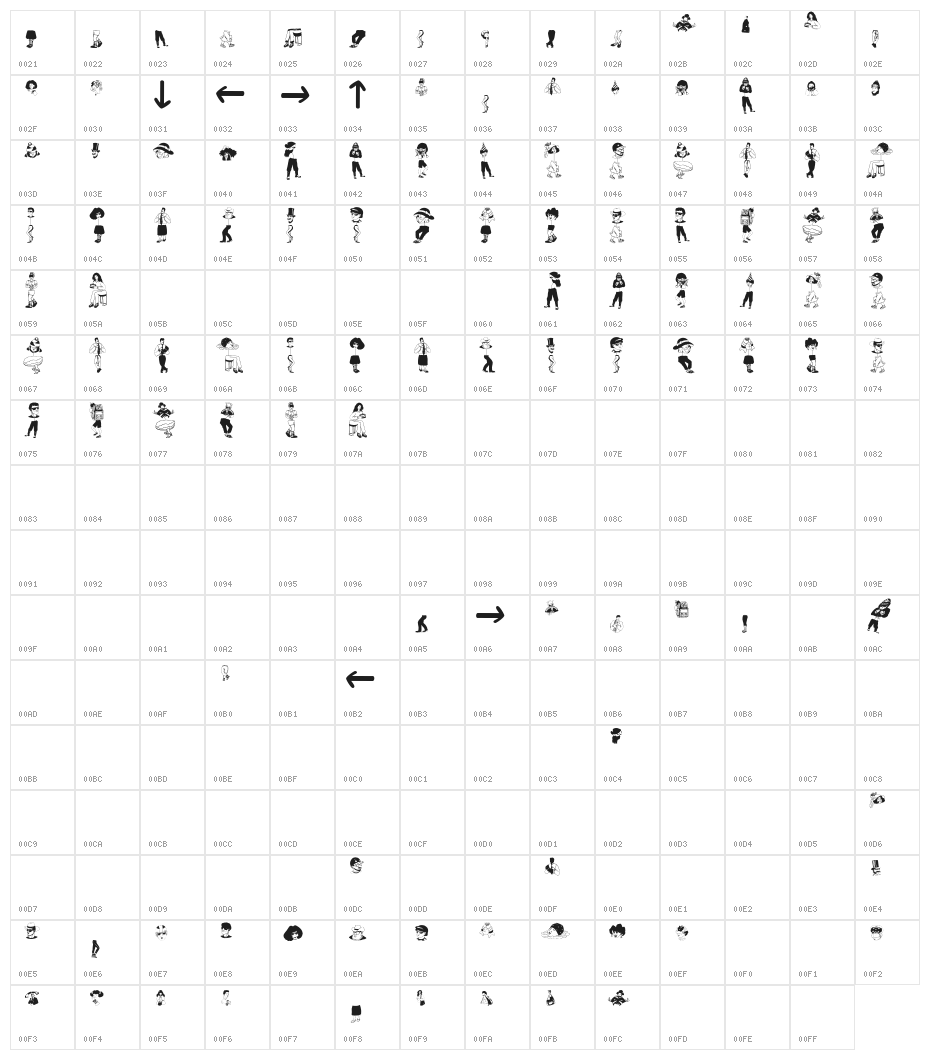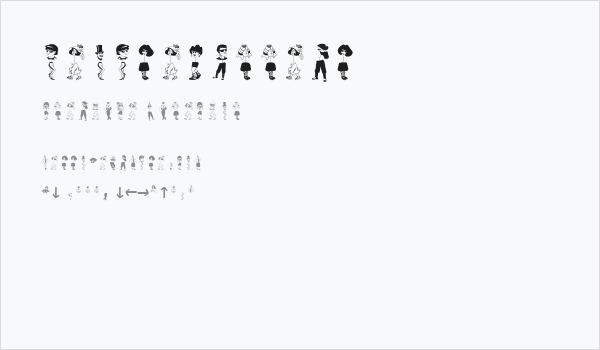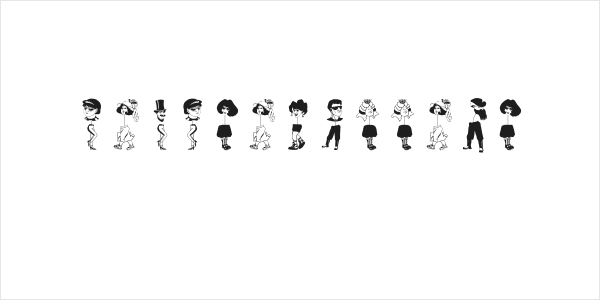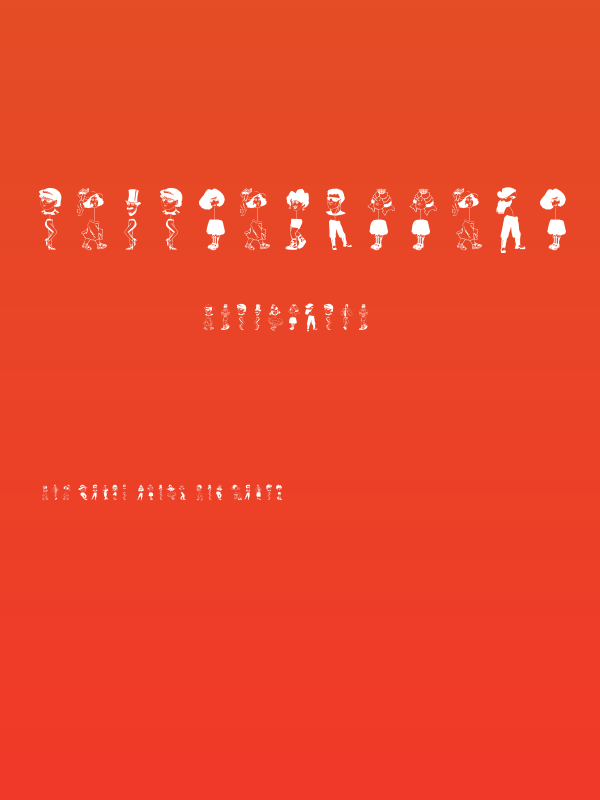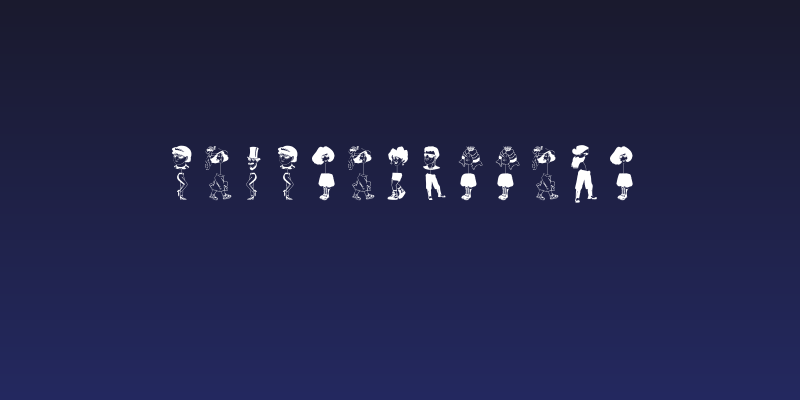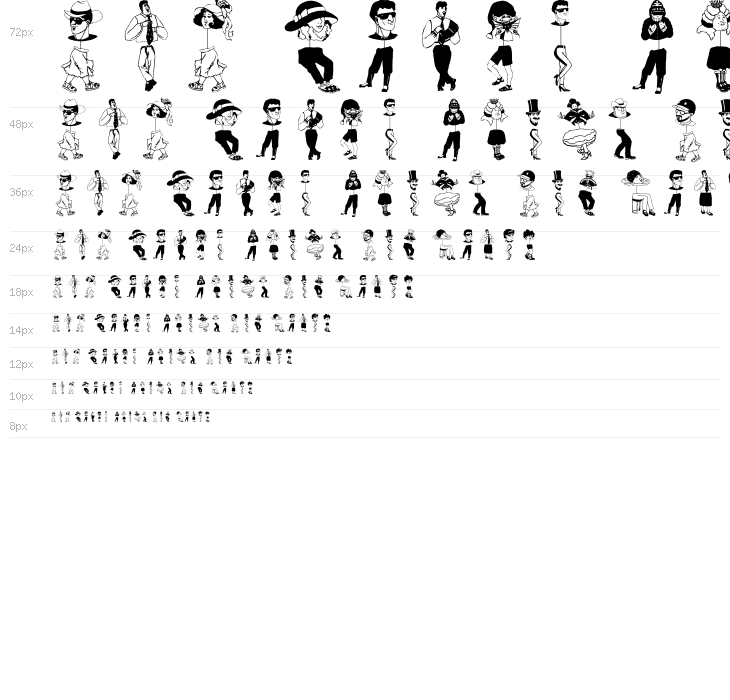
PeopleSurreal Font
PeopleSurreal Description
A highly decorative and surreal typeface where each character is represented by a whimsical, hand-drawn figure or part of a person, blending human forms with playful, exaggerated features. The style is illustrative and imaginative, with each glyph being unique and visually engaging.
| Overall Style | Surreal, Artistic, Playful, Decorative |
| Use Case | Logos, Headlines, Posters, Artistic projects |
| Proposed Projects | Posters, album covers, editorial illustrations, creative branding, art projects, childrenΓ’β¬β’s books. |